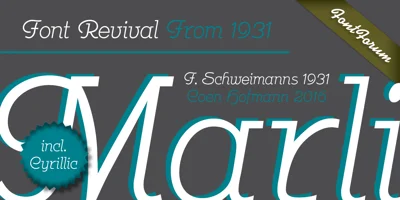
Marli Font
Marli Font – Elegant Serif with Modern Sensibility
Discover the perfect balance of classic sophistication and contemporary flair with Marli Font. This exquisite serif typeface combines timeless elegance with clean, modern proportions, making it ideal for luxury branding, editorial design, and refined digital projects.
Why Designers Choose Marli Font
Sophisticated Serif Design – Beautifully crafted letterforms with delicate flourishes
Versatile Weight Options – From airy thin to commanding bold
Exceptional Readability – Perfect for both long text and striking headlines
Adaptable Personality – Works equally well for corporate and creative applications
Premium Typography Features
Extended Character Set – Includes ligatures and stylistic alternates
OpenType Features – Professional typographic controls
Multilingual Support – Covers 80+ languages
Perfect Kerning – Meticulously adjusted letter spacing
Marli Font
Where Marli Font Excels
1. High-End Branding
Perfect for fashion labels and premium products
Creates instant credibility and sophistication
2. Editorial Excellence
Ideal for book covers and magazine spreads
Beautiful in both display and body text
3. Digital Sophistication
Exceptional screen readability
Elevates any web interface
4. Packaging Elegance
Adds luxury appeal to product packaging
Complements minimalist and ornate designs
Design Tip: Pair Marli with a clean sans-serif for stunning contemporary contrast!
Bonus: Includes matching italic variants in the full commercial version!